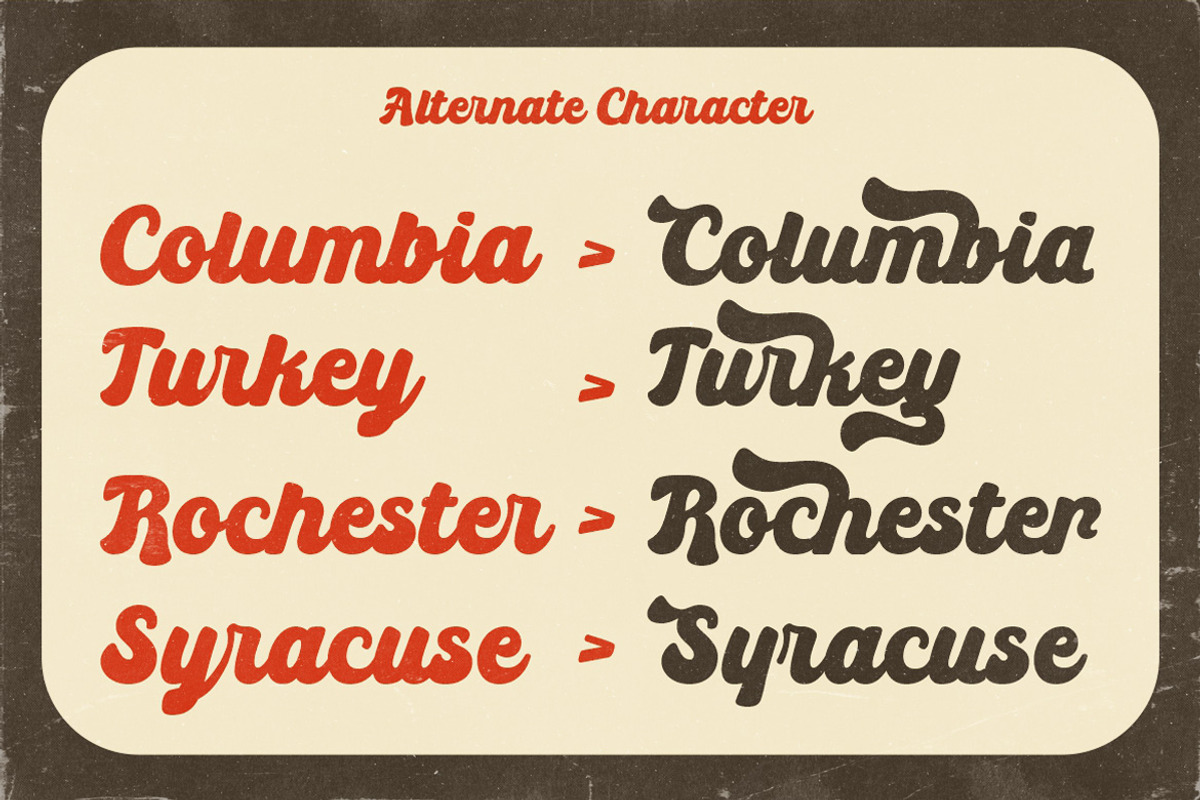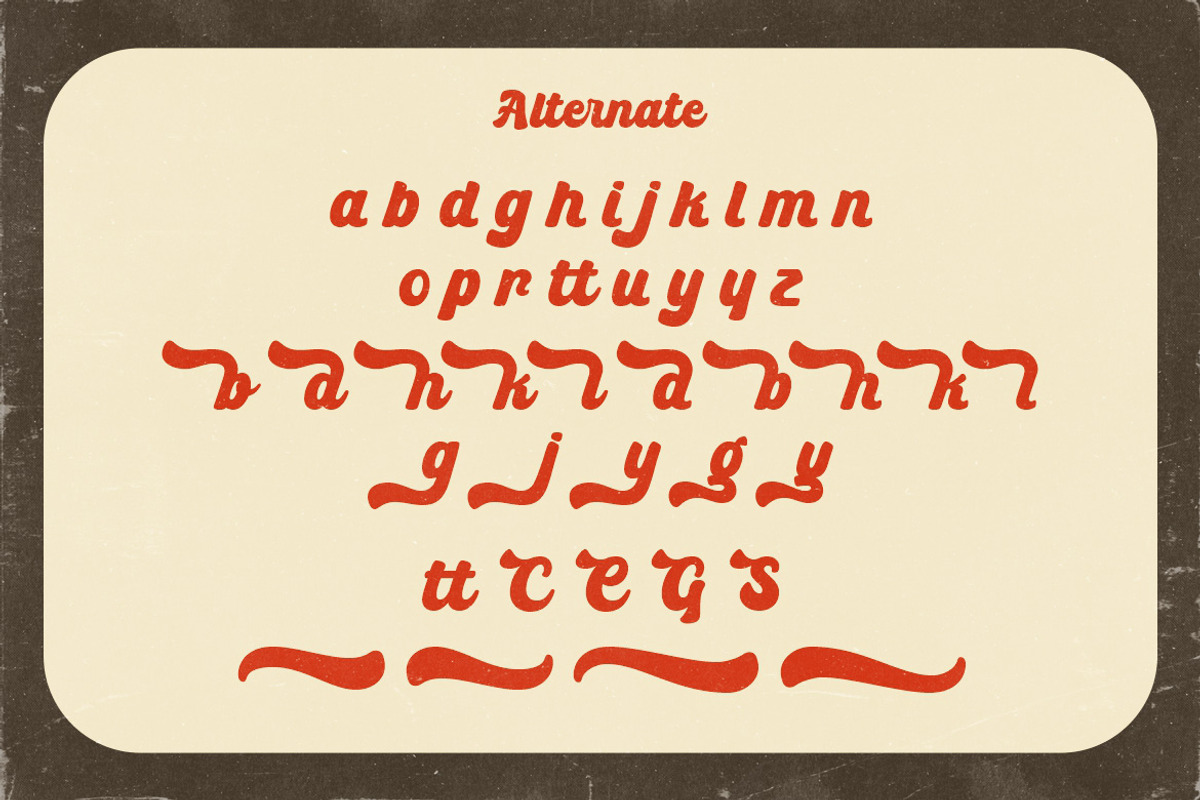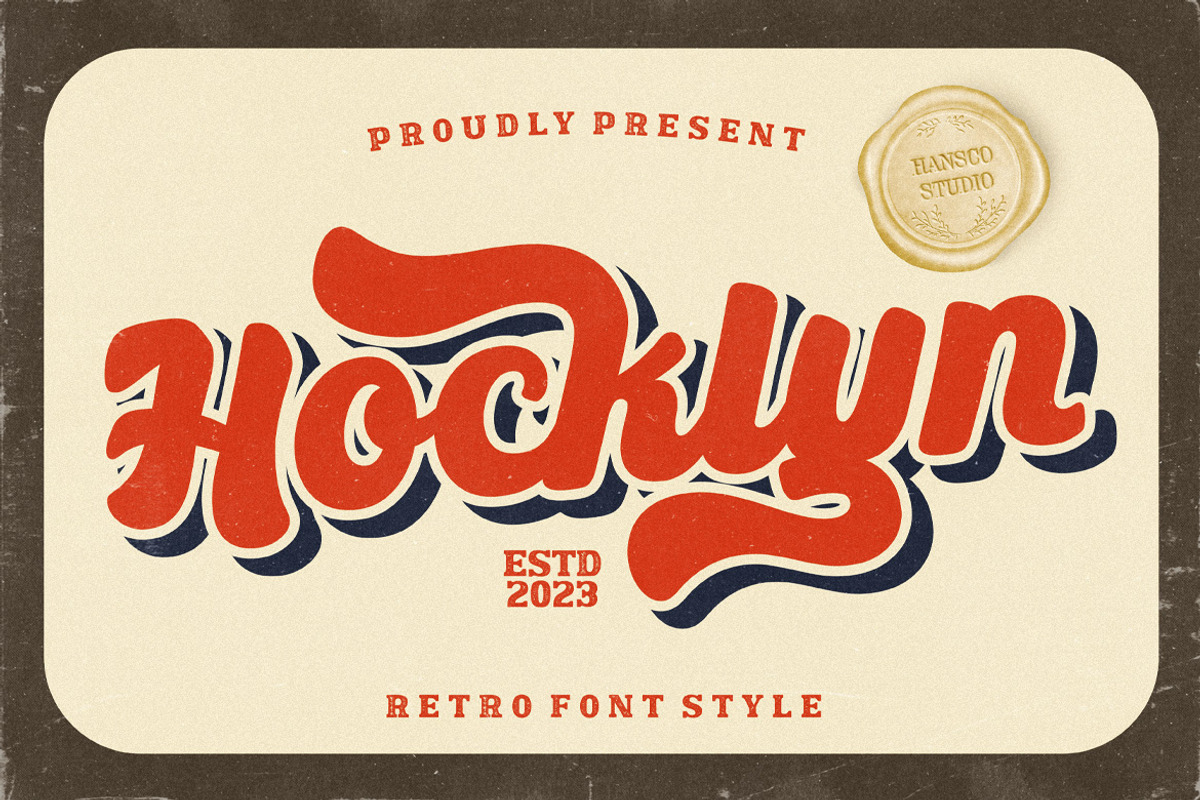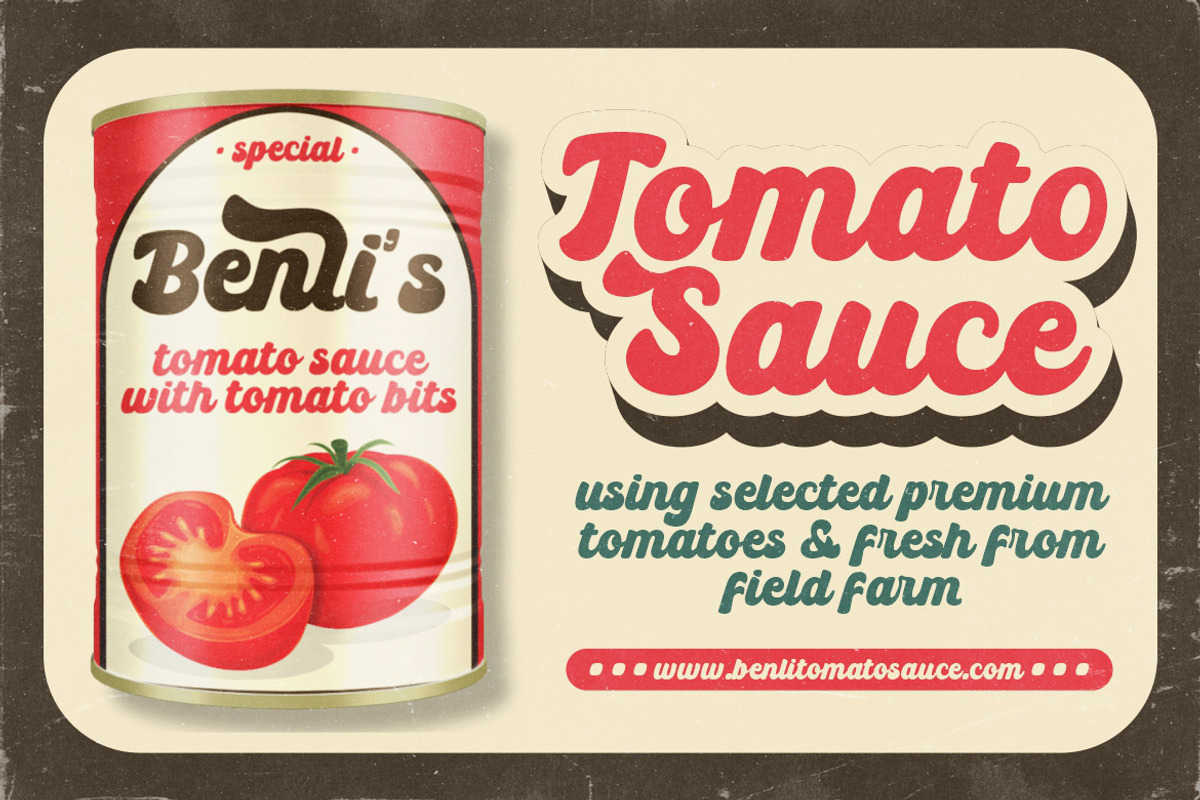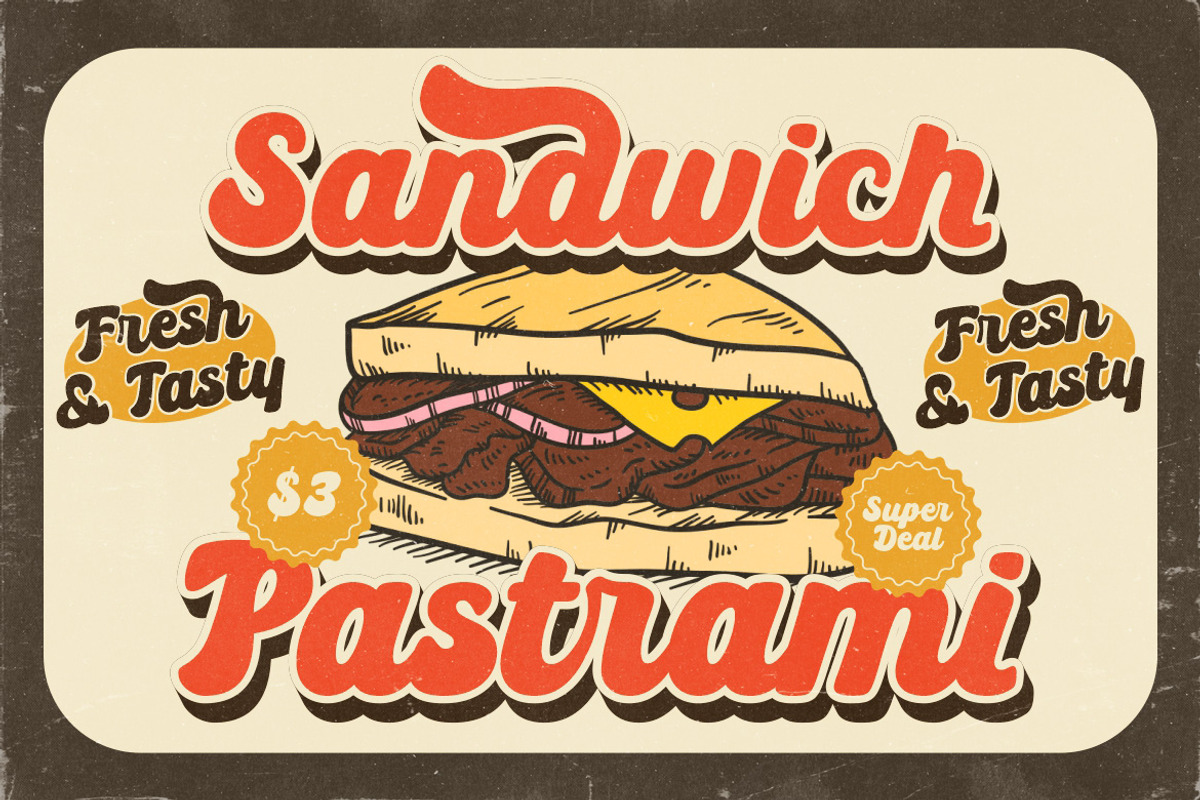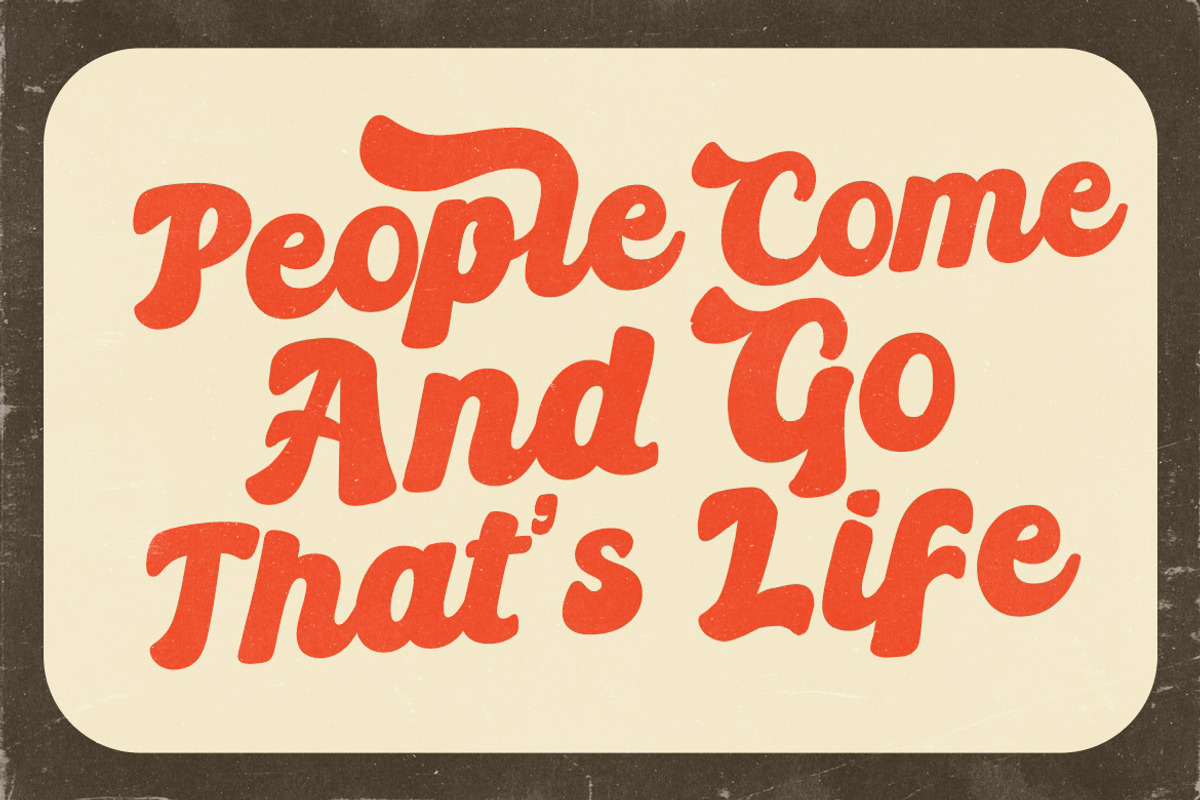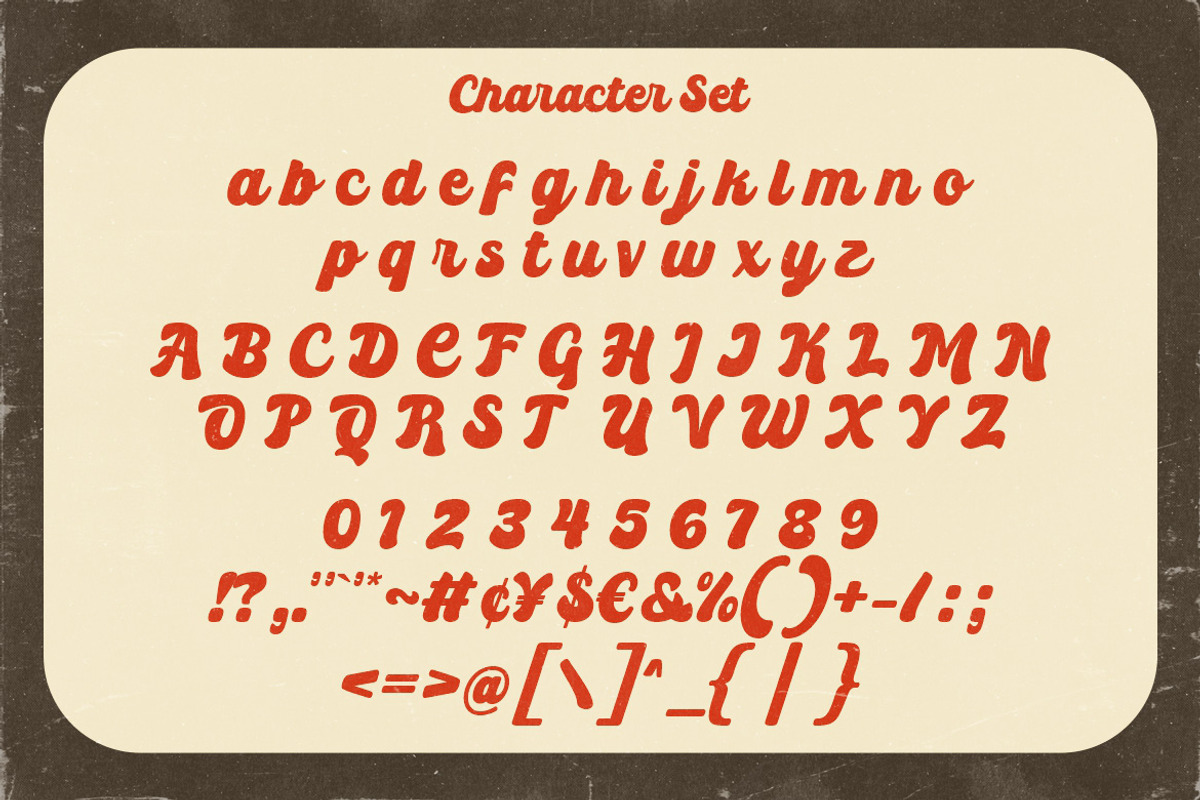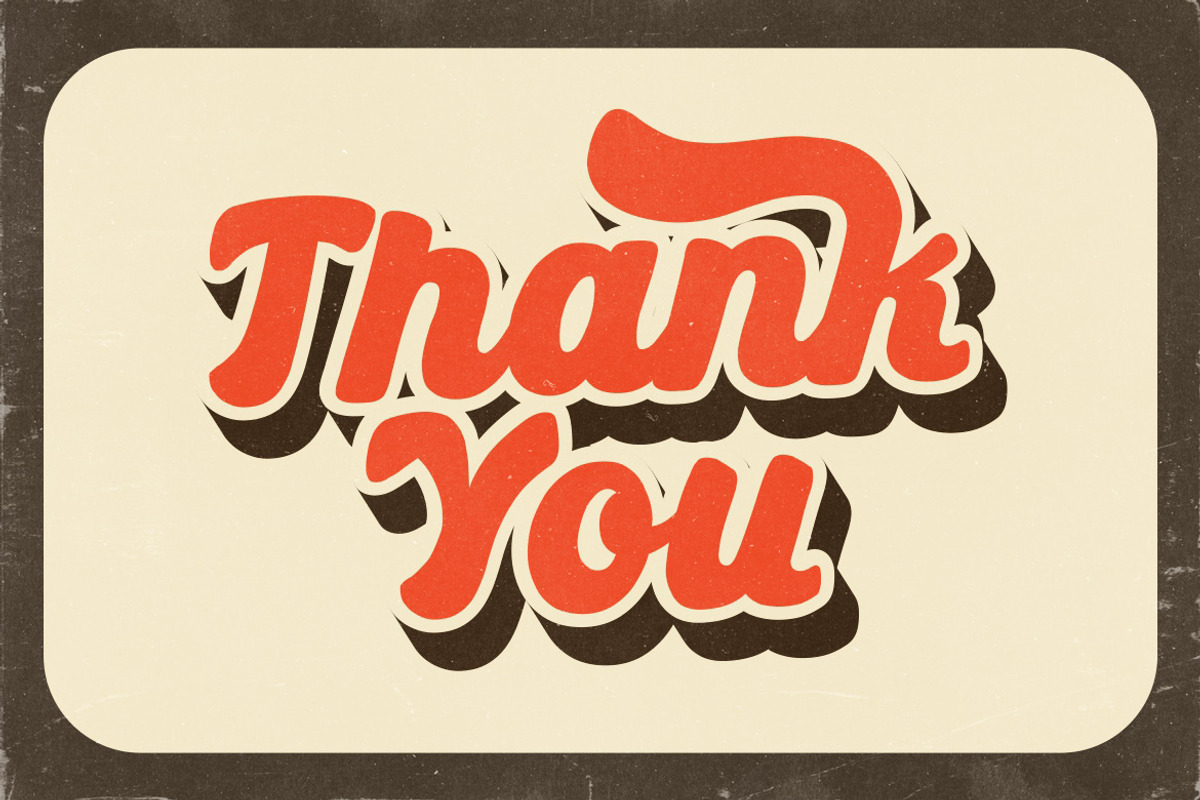
Hocklyn Font
Hocklyn Font is a lettering retro vintage font. You will get alternate characters such as swash on some characters. Equipped with all complete characters ranging from uppercase letters, lowercase letters, numbers, punctuation marks and multi-lingual support, this font is ready to be used in any project. Very suitable for logotype, Stickers, Packaging design, Cricut Project, Headlines, Brand identity, T shirt or Apparel industry, Posters, Magazines, Books, YouTube, Instagram, Websites, Canva, Corjl or any of your creative design projects. Use this Hocklyn Font to add that special modern retro touch to any design idea you can think of!
- Alternate Character